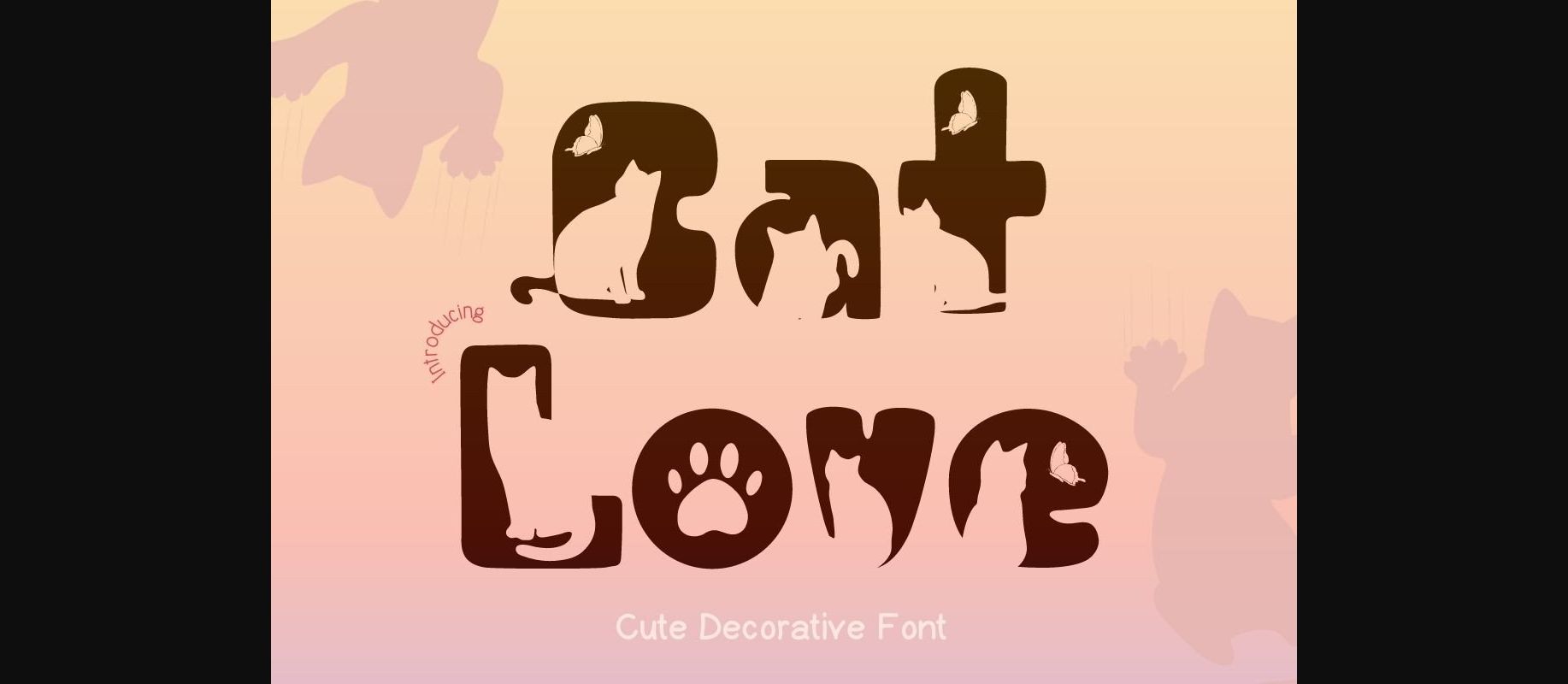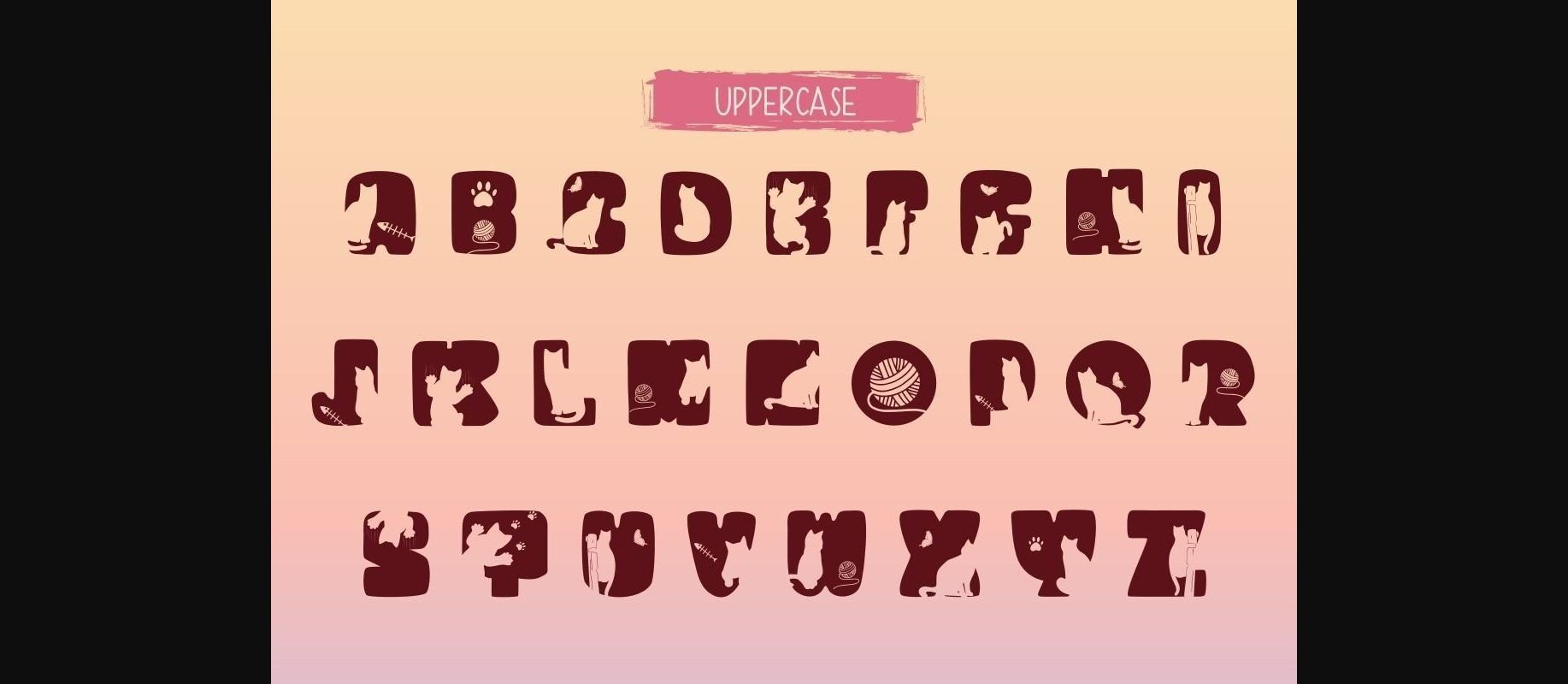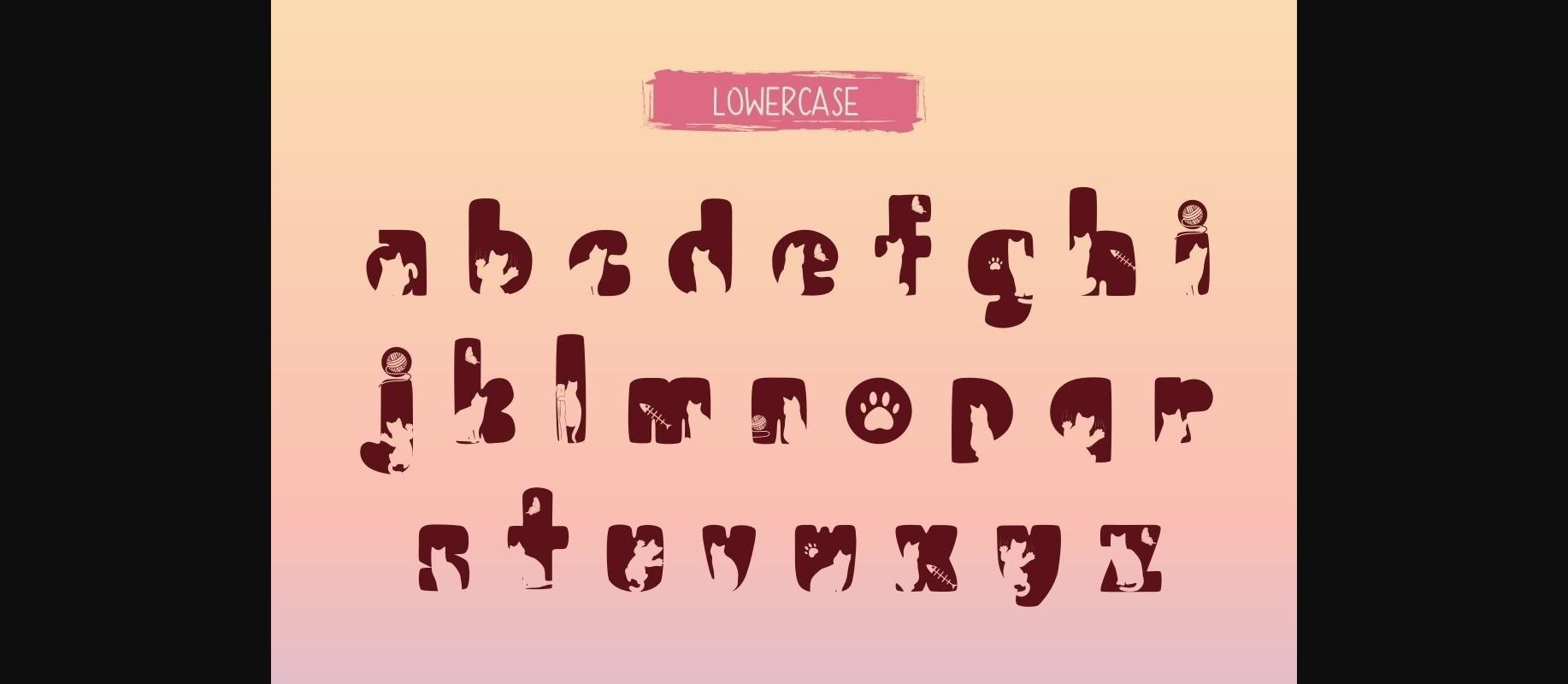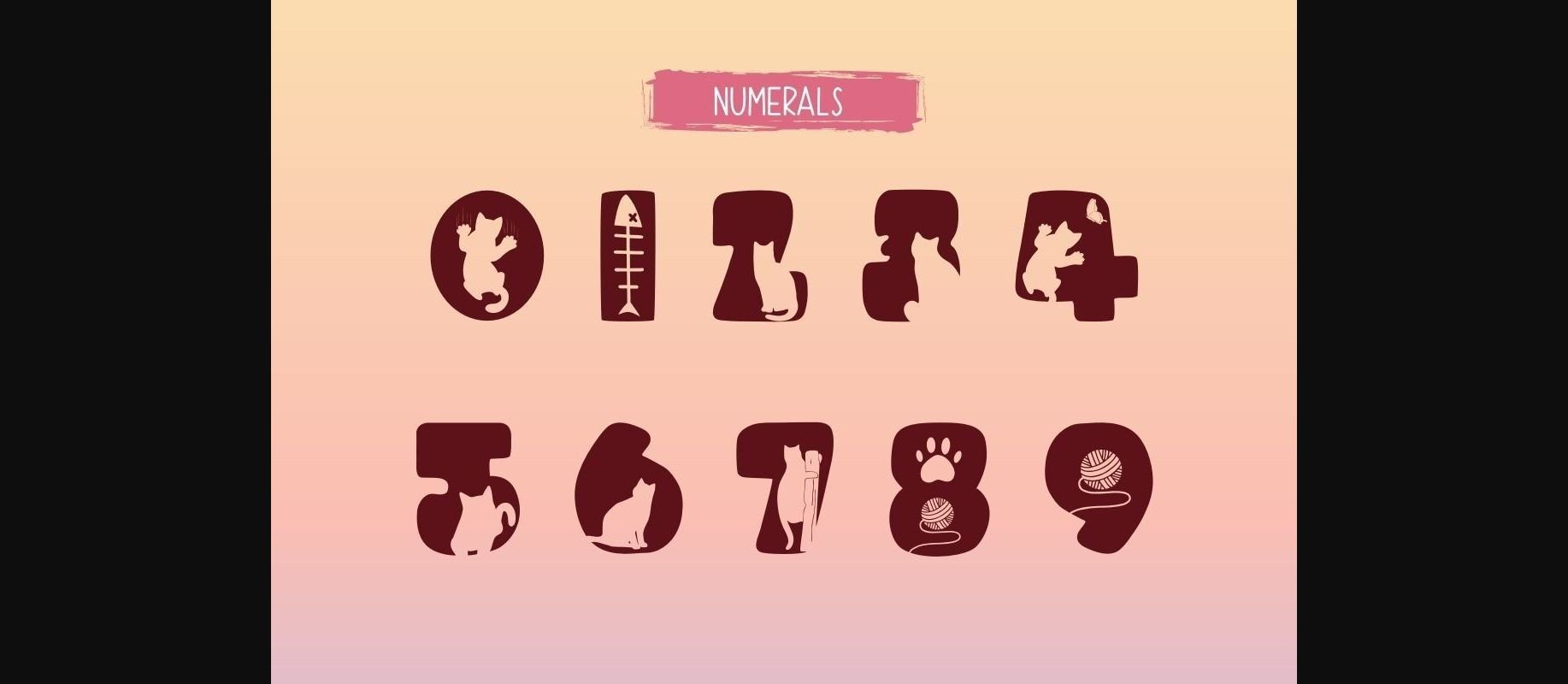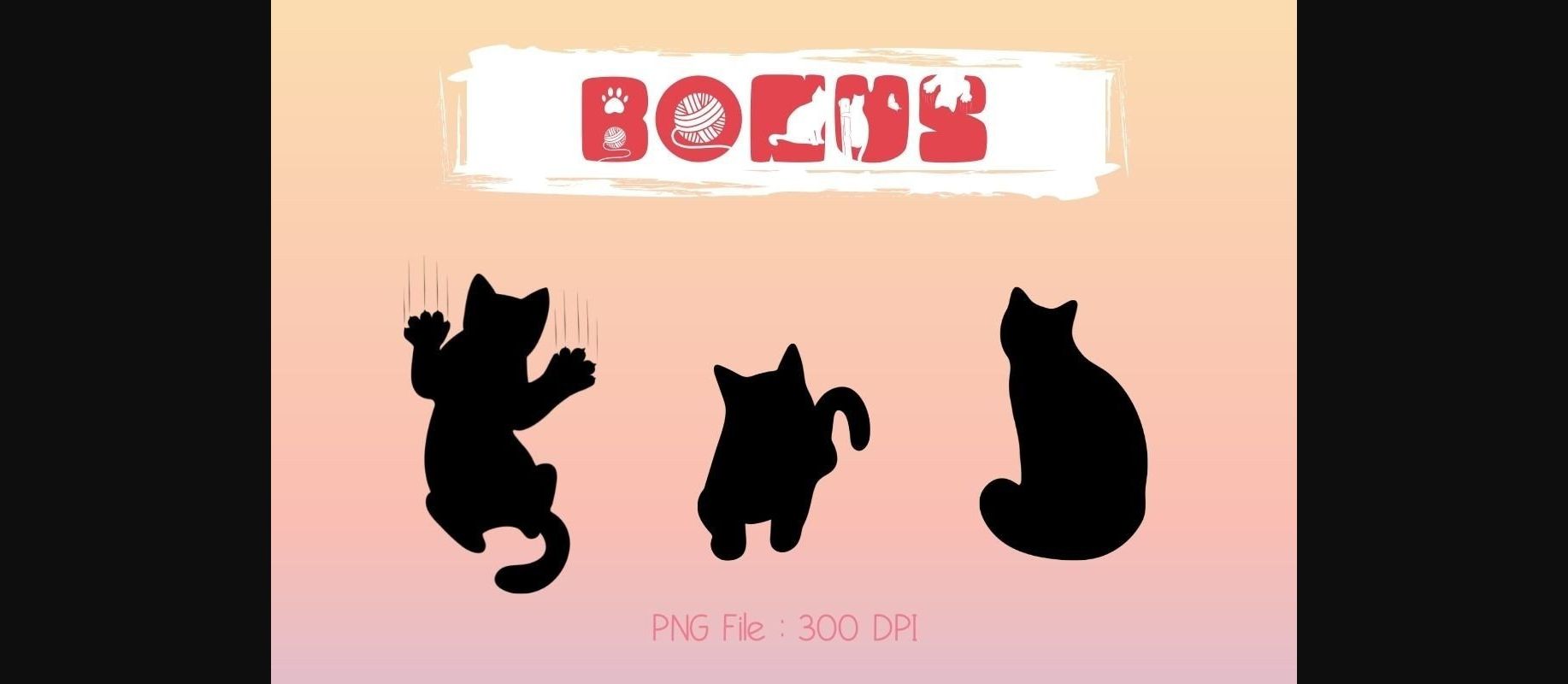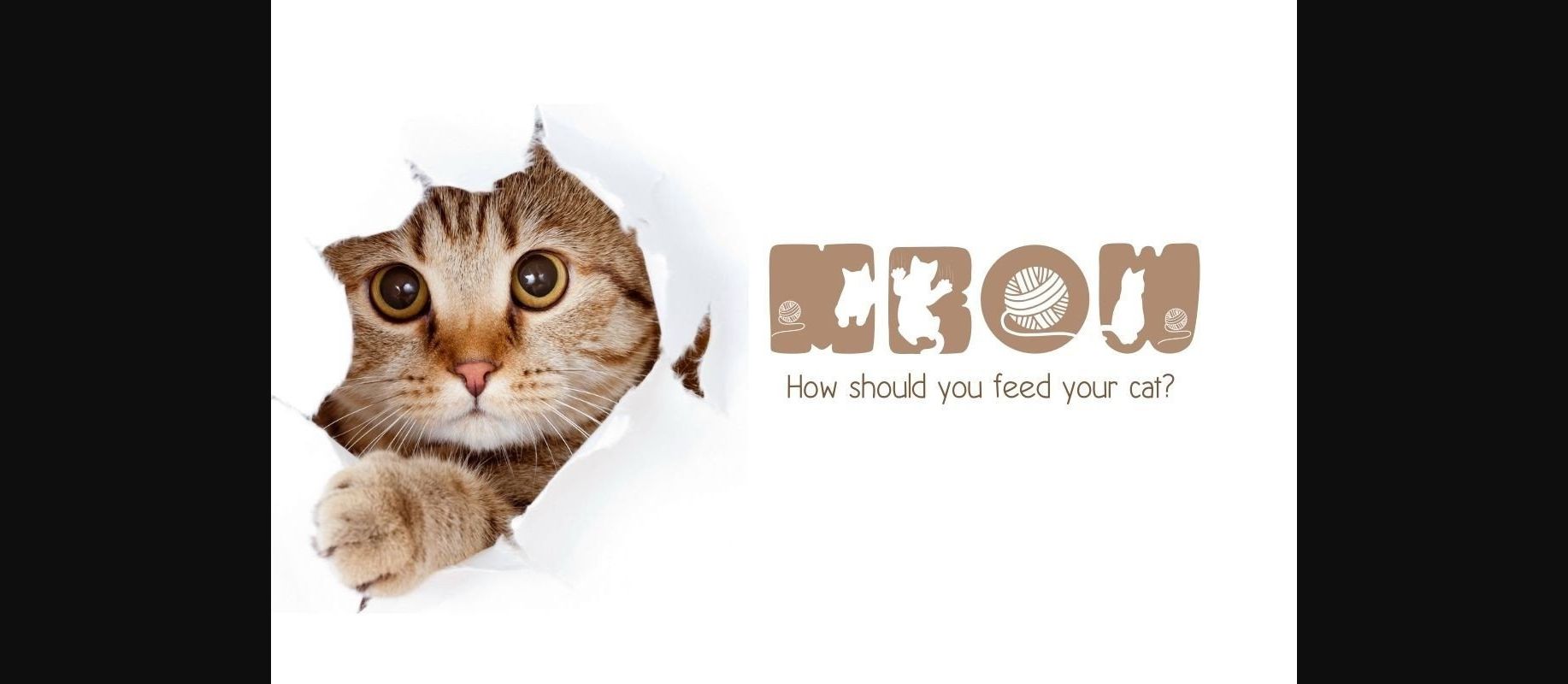
About Cat Love Font
Cat Love is a cute decorative typeface. This font uses a variety of cat silhouettes combined with bold characters, creating a surprisingly cute new style.
This font has a cute and quirky style, suitable for various new designs to match the back-to-school theme, such as banners, content, mugs, cards, shirts, beautiful stationary art, social media posts, and more!